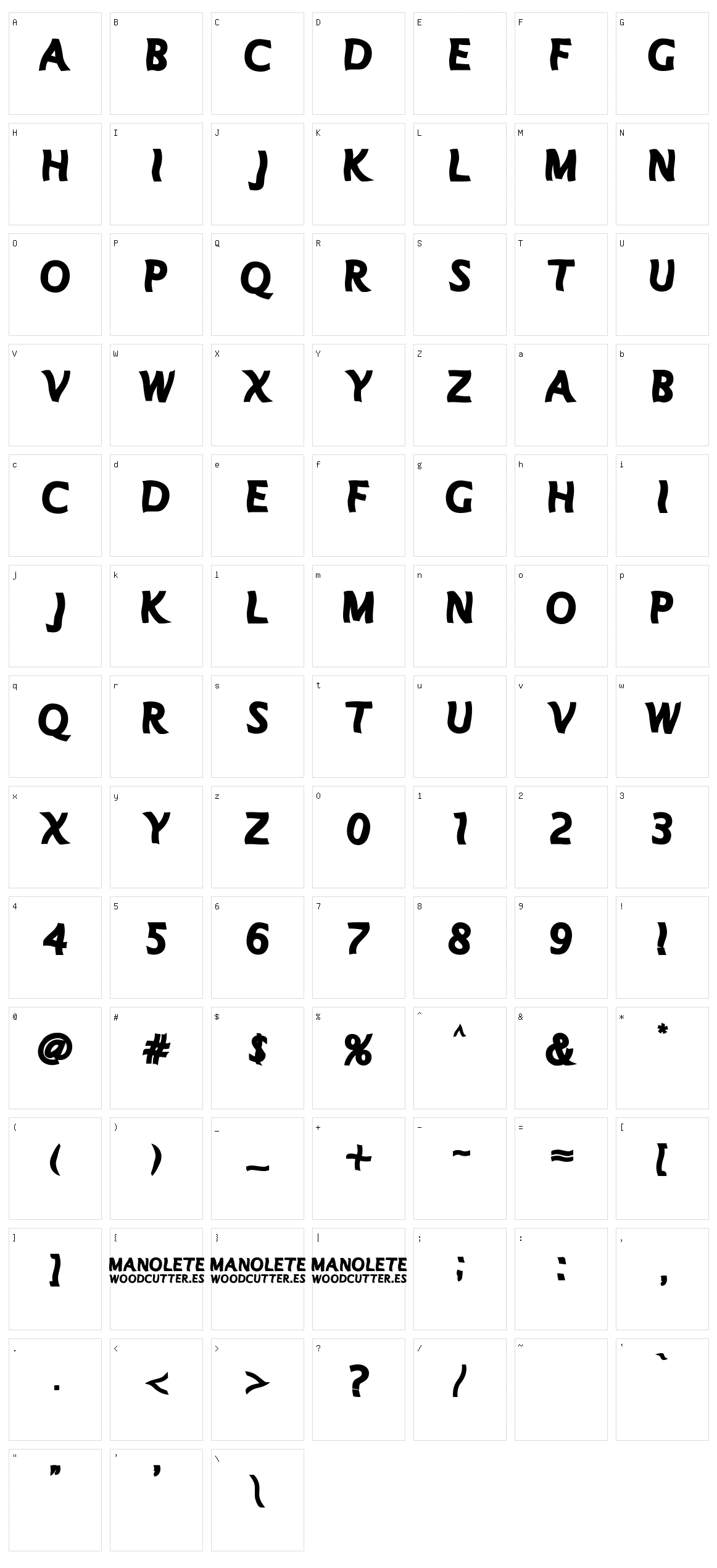
The free font Manolete is carefully designed by Woodcutter, showcasing a thoughtful balance of creativity and usability and falls under the Distorted font style. When you download the ZIP file, it contains only 15.32 KB of font files, making it lightweight and quick to download. Please review the license details below to understand permitted usage and distribution rights. If license information is not available, we recommend using this font for personal projects only or contacting the author directly for commercial usage permissions.